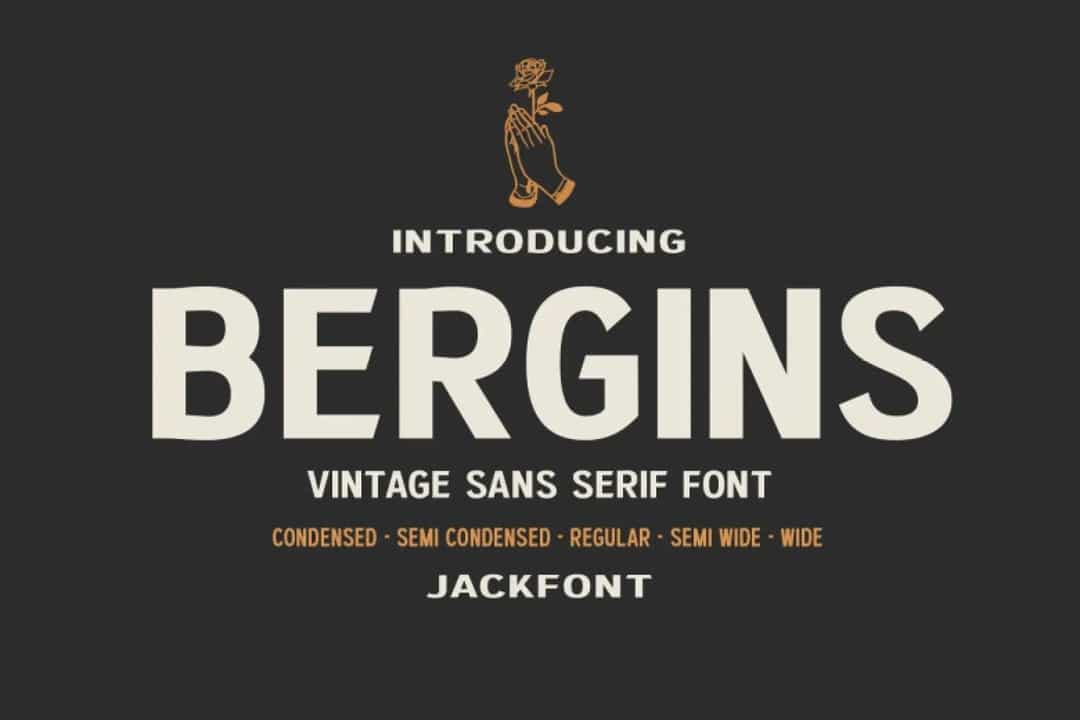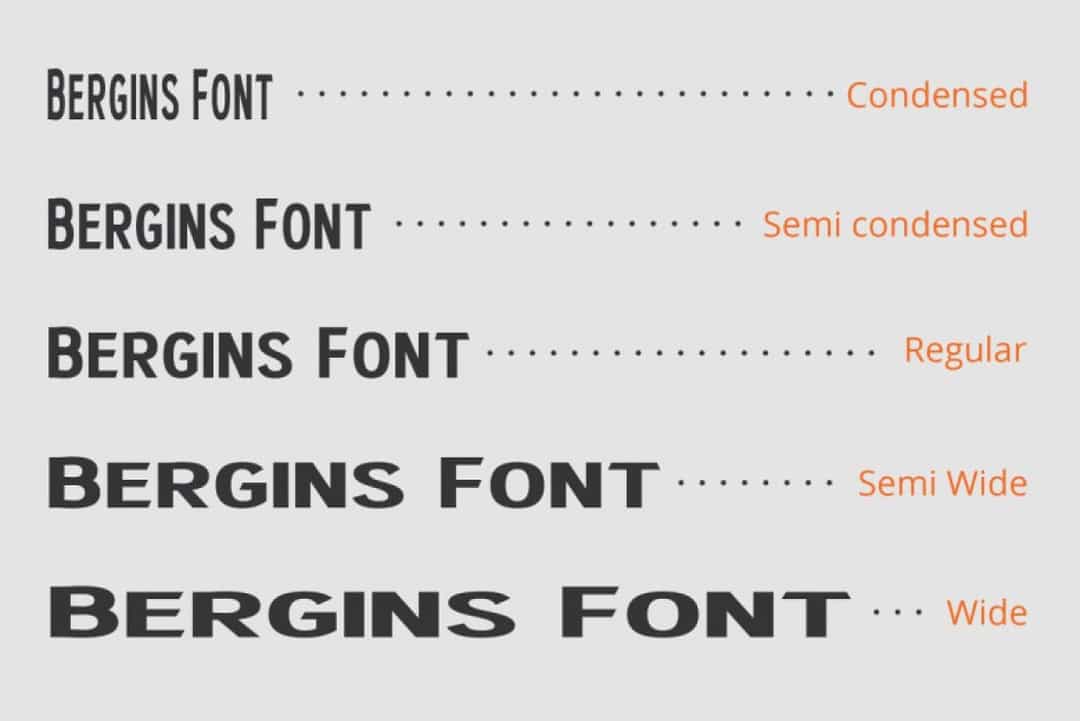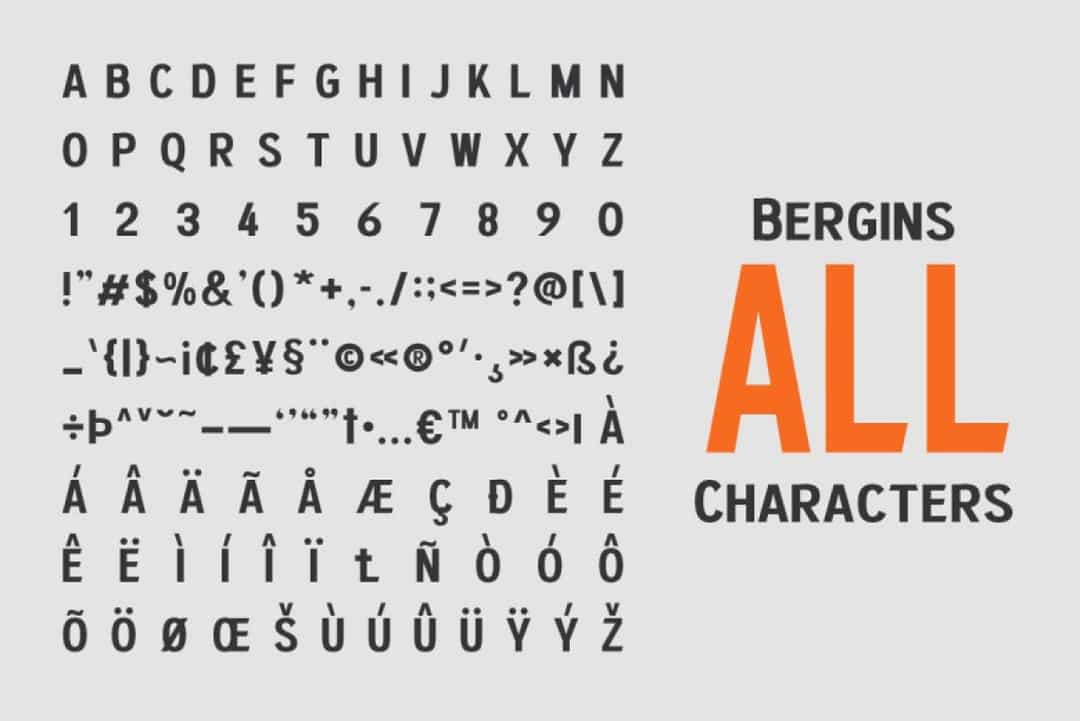
Bergins Grotesque Sans Serif Font. Modern Aesthetic Bergins’ contemporary grotesque style draws you in, mesmerising you with its meticulous design and fresh, contemporary aesthetic. Each curve and stroke in Bergins is precise ensuring optimal readability across various sizes and platforms, making working with it much simpler for various applications.